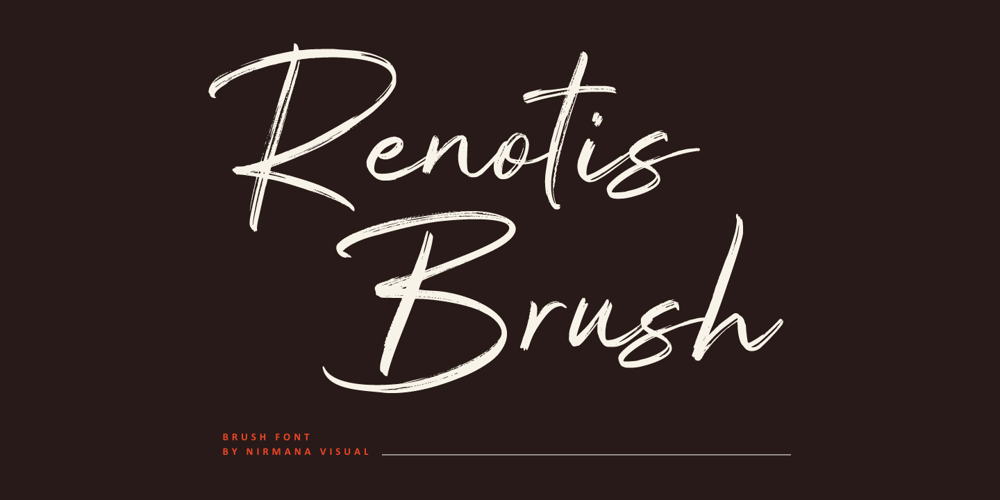
Renotis Brush Font Family was designed by Sigit Dwipa and published by Nirmana Visual. Renotis Brush contains 1 styles and family package options. Renotis Brush – Brush Font offers beautiful typographic harmony for a diversity of design projects, including logos & branding, social media posts, advertisements & product designs.